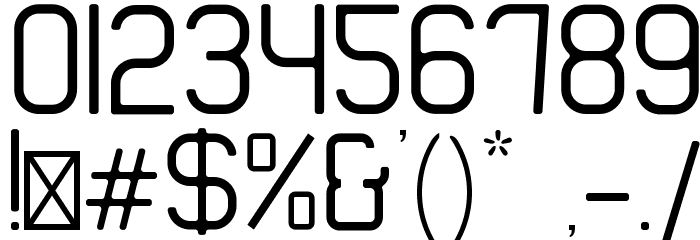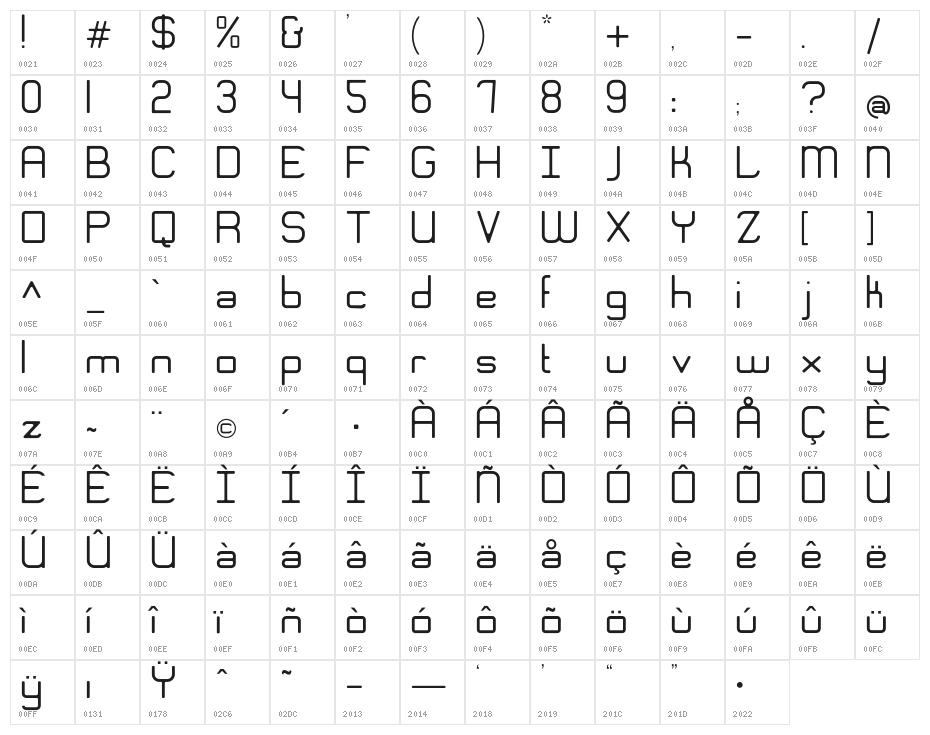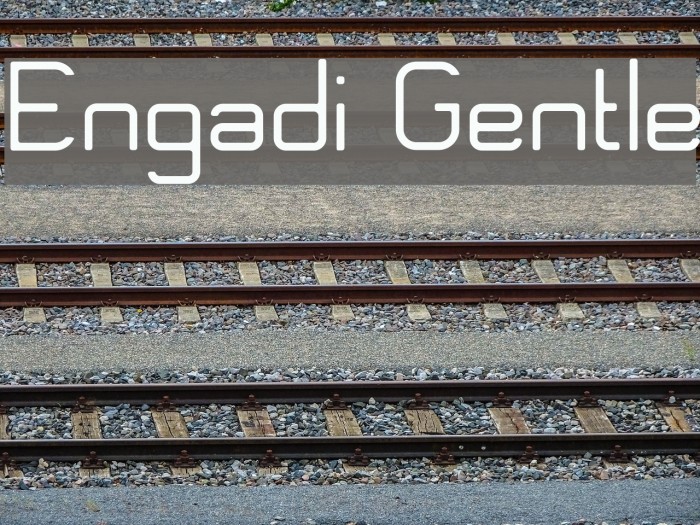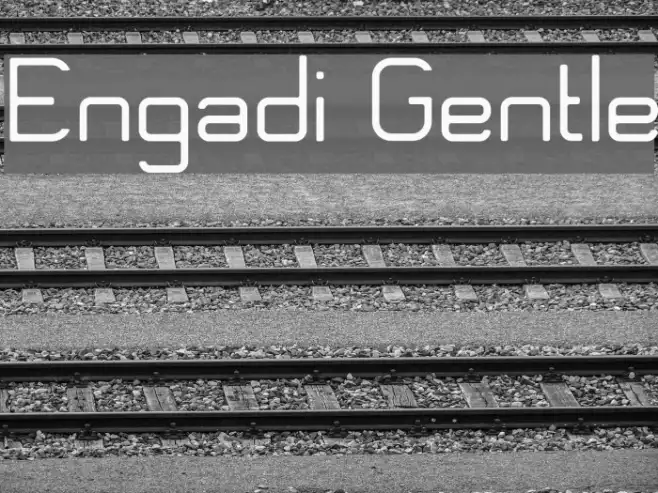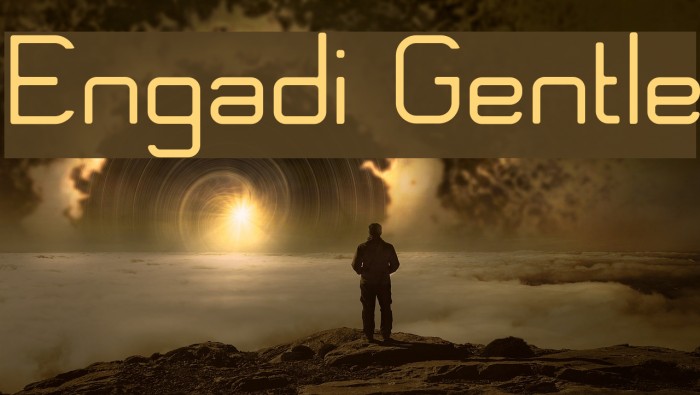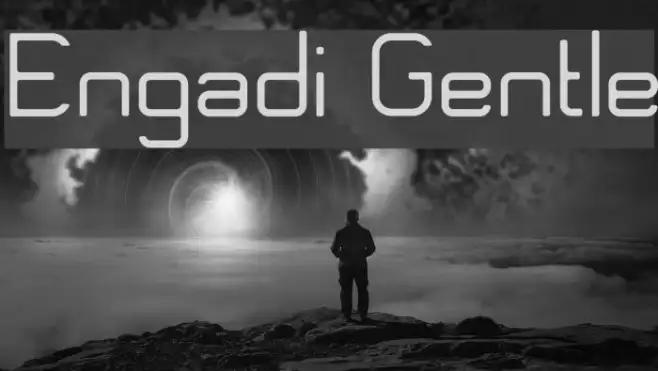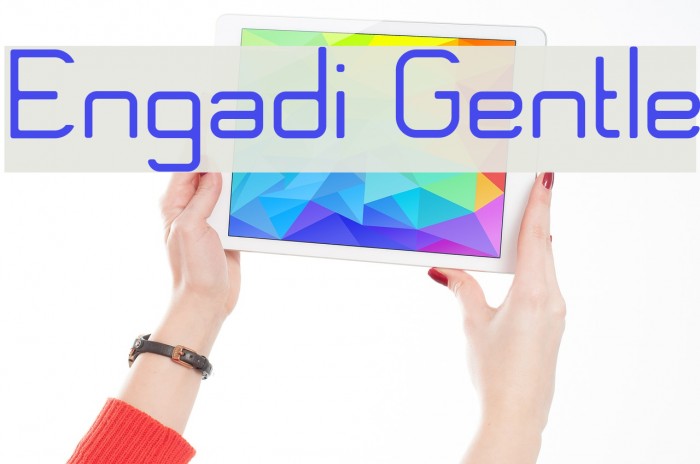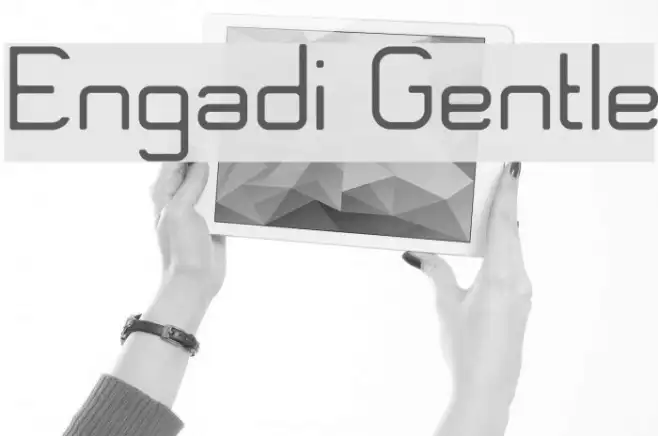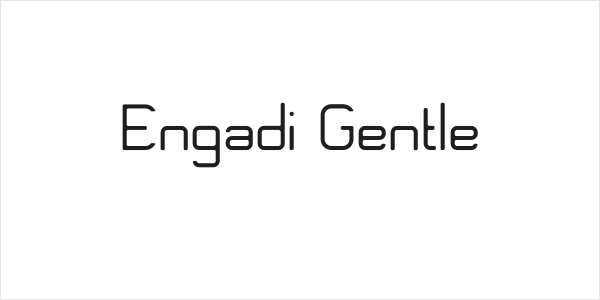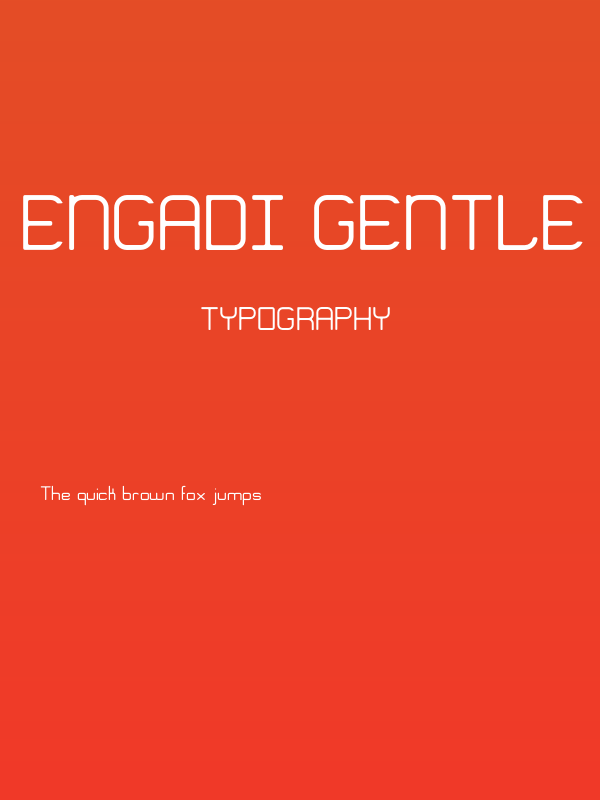
Engadi Gentle Font
Engadi Gentle Description
This font features a clean and modern sans-serif style with rounded edges, giving it a friendly and approachable appearance. The characters are uniformly structured, with consistent stroke widths that provide a balanced and harmonious look. The uppercase letters are slightly taller than the lowercase, maintaining a clear distinction while ensuring readability. The numerals are well-proportioned, aligning seamlessly with the overall aesthetic. Special characters are designed with the same attention to detail, ensuring they integrate smoothly with the rest of the typeface.